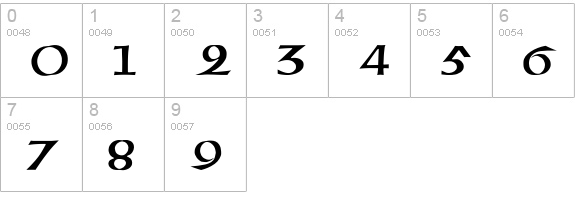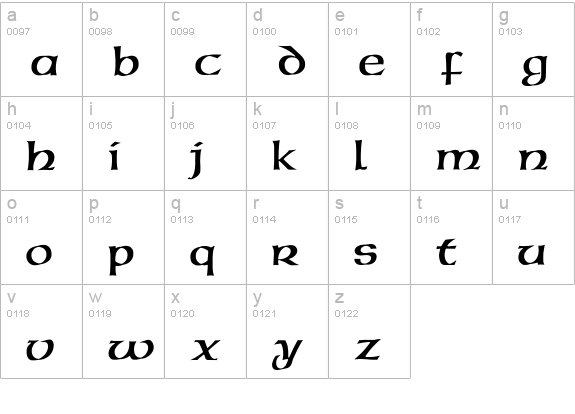
AmericanUncial font is a beautiful and elegant typeface that combines traditional Celtic calligraphy with a touch of American charm. Its distinctive letterforms and intricate details make it perfect for adding a touch of sophistication to any design project. With its classic yet modern look, AmericanUncial font is versatile and suitable for a wide range of applications, from invitations and greeting cards to branding and packaging. One of the best things about AmericanUncial font is that it is completely free to download. You can easily access this gorgeous typeface at FontsMarket.com, where you can find a wide selection of high-quality fonts for all your creative needs. Whether you're a graphic designer, a blogger, or just someone looking to add a special touch to your projects, AmericanUncial font is a fantastic choice that will elevate your designs to the next level. Download it today and let your creativity shine!